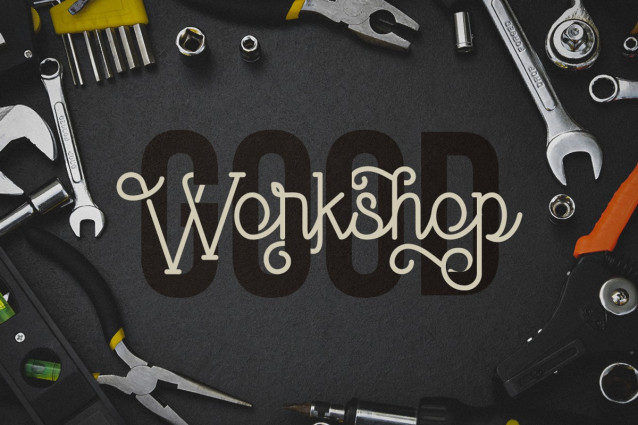
Anabelia Vintage Monoline Font
Anabelia Vintage Monoline Font is a handcrafted monoline font. It has a vintage and classic feel with an old, handmade look. Included in this download are various styles which gives you the opportunity to create unique designs, every time you use it!